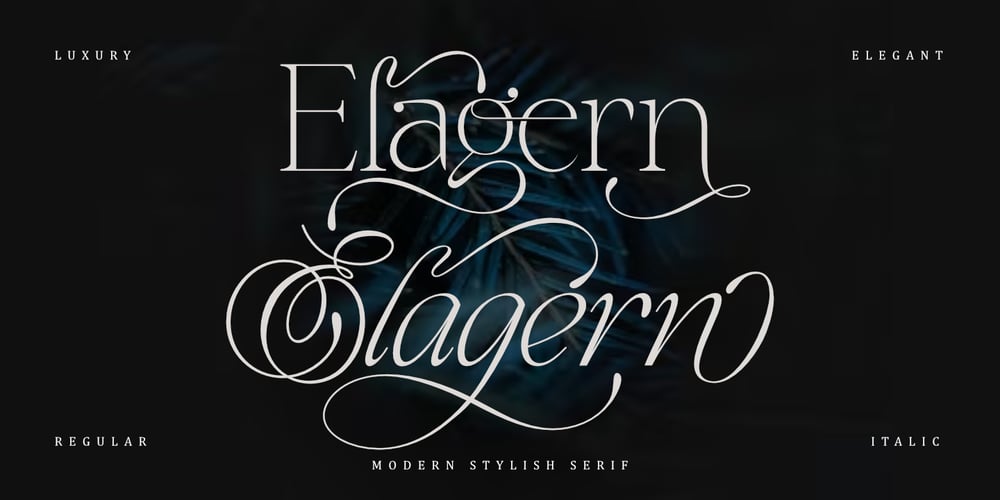
Elagern Font Family was designed by Saiful Anwar and published by Sealoung. Elagern contains 2 styles and family package options. Elagern is a serif font with an elegant, modern design. It features multiple alternates and ligatures, making it a versatile choice for a wide range of applications. Its elegant serifs and classic proportions make it perfect for everything from body text to headlines, making it a perfect choice for any project.Accessible in the Adobe Illustrator, Adobe Photoshop, Coreldraw, even work on Microsoft Word. PUA Encoded Characters – Fully accessible without additional design software. Fonts include multilingual support. Thanks so much for checking out my shop!